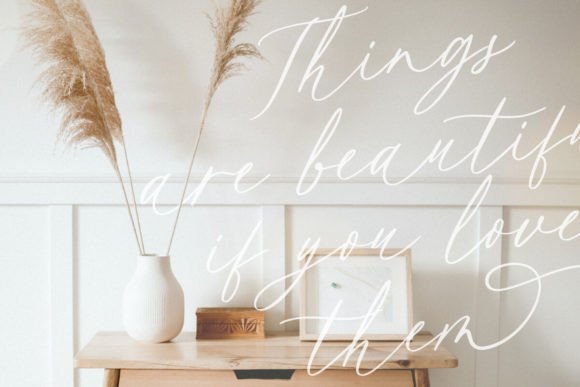
Adore Stacy is a beautiful handwritten script, featuring a fluid and flowing style with a touch of love. This font is based on brush lettering and has a natural, expressive feel, making it suitable for any design project, especially wedding invitations.
This font also adds sophistication and elegance to any design and can be used to create a handwritten look without the time and effort of actual calligraphy.
Adore Stacy Font